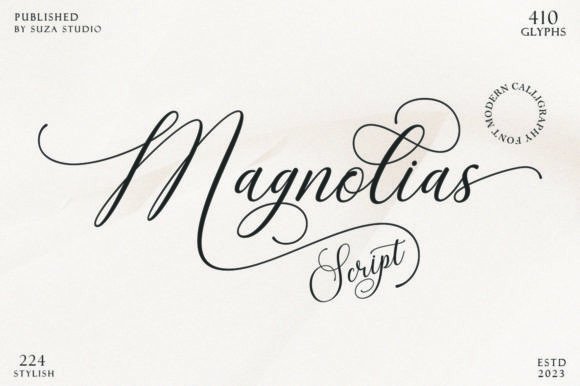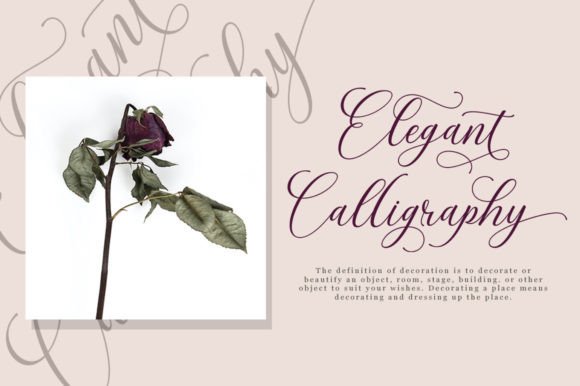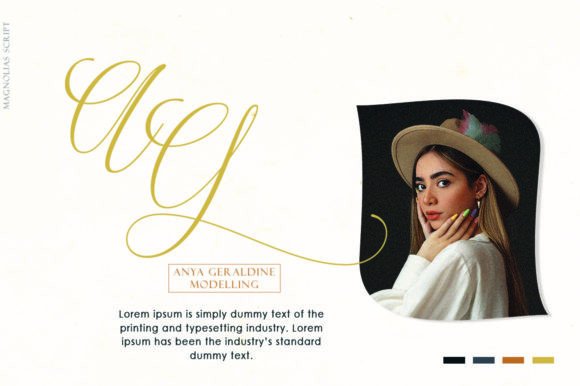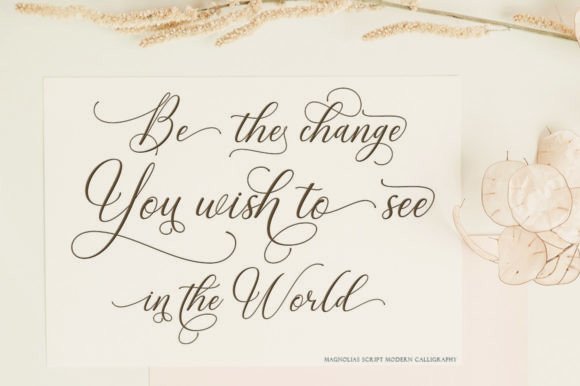
Magnolias Script Font
About the Magnolias Script Font
Welcome to the world of Magnolias Script Font, a typeface that will inspire your next great project. Magnolias Script is a modern calligraphy script font that comes with beautiful and unique alternative characters. Magnolias Script is appealing because it’s smooth, clean, feminine, sensual, glamorous, simple, and very easy to read. The classic style is perfect for all kinds of formal items such as invitations, labels, menus, logos, fashion, makeup, stationery, and many more.
Magnolias Script excels in applications requiring a touch of elegant femininity, such as wedding invitations, branding for beauty or fashion brands, and luxury packaging design. Its readability makes it suitable for short text blocks on marketing materials or signage, but it’s less effective for large bodies of text or UI elements where legibility is paramount.
For optimal visual impact, pair Magnolias Script with a clean sans-serif like Lato or Montserrat for a modern contrast, or a classic serif font such as Garamond or Playfair Display for a more traditional feel. A simple geometric sans-serif could also add a contemporary edge.
The overall personality of Magnolias Script is sophisticated and refined, conveying a sense of understated elegance and charm. Avoid using it in contexts requiring a bold, playful, or highly informal tone.
Magnolias Script Font Usage Examples
Magnolias Script Font Example